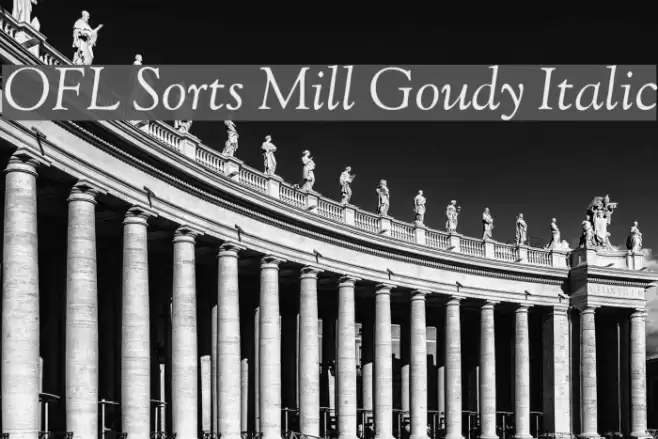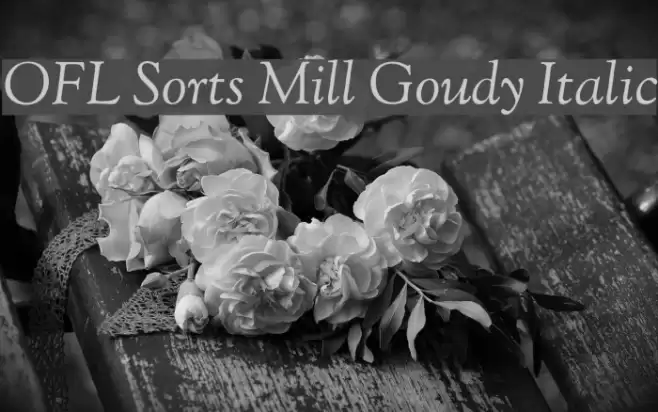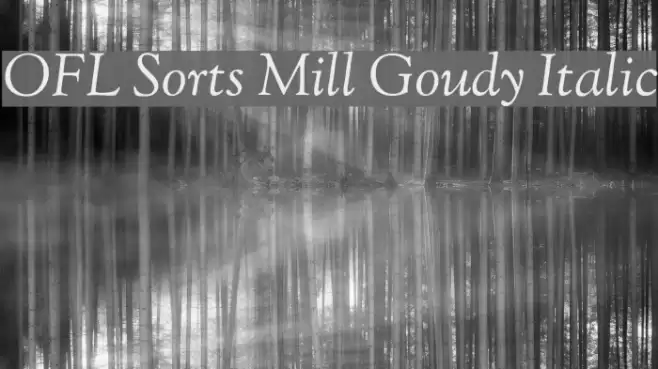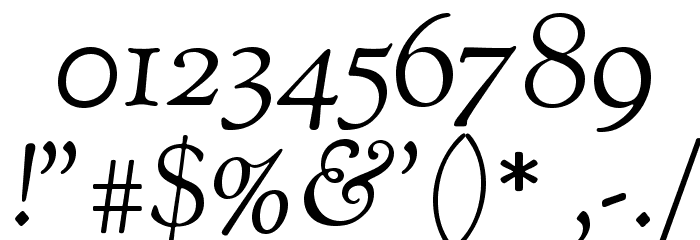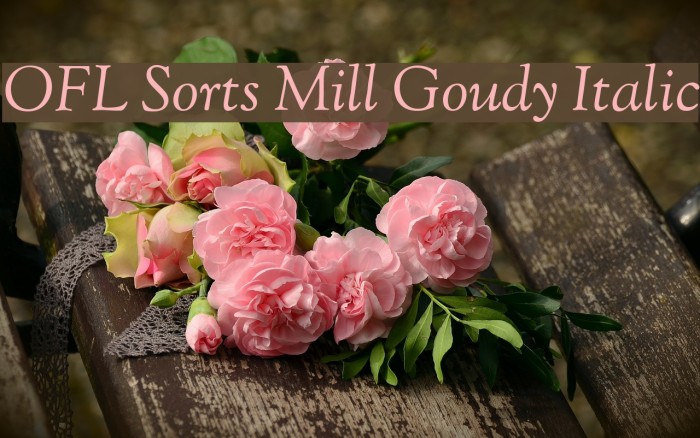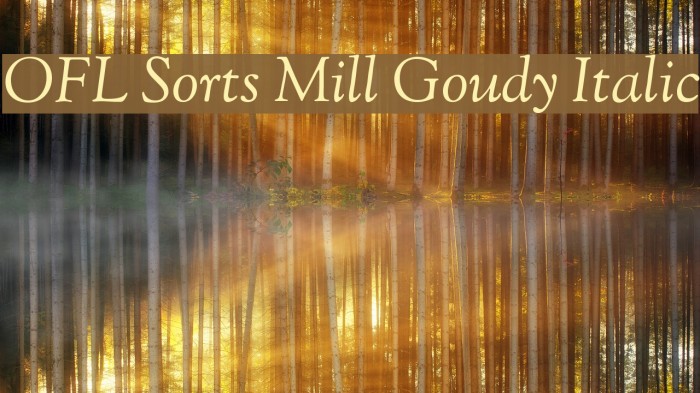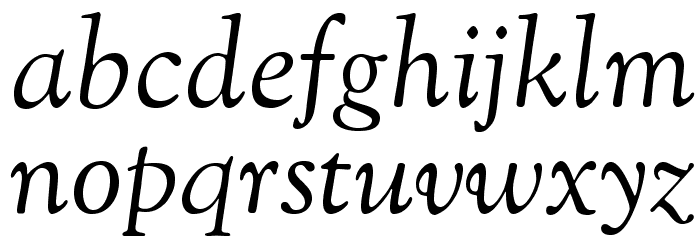
OFL Sorts Mill Goudy Italic Font
OFL Sorts Mill Goudy Italic Description
This font exudes a classic elegance with its beautifully crafted italic style. The characters are gracefully slanted, offering a sense of movement and sophistication. Each letter features delicate serifs that enhance its traditional appeal, while the moderate contrast in stroke thickness adds to its readability. The font maintains a balanced character spacing, ensuring clarity and legibility across various applications. Its timeless design makes it suitable for projects that require a touch of refinement and historical charm.
A classic, elegant italic serif font with graceful slants and delicate serifs from Uncategorized fonts.
- Proposed Projects: Ideal for wedding invitations, formal documents, book covers, and elegant branding.
- Overall Style: Classic